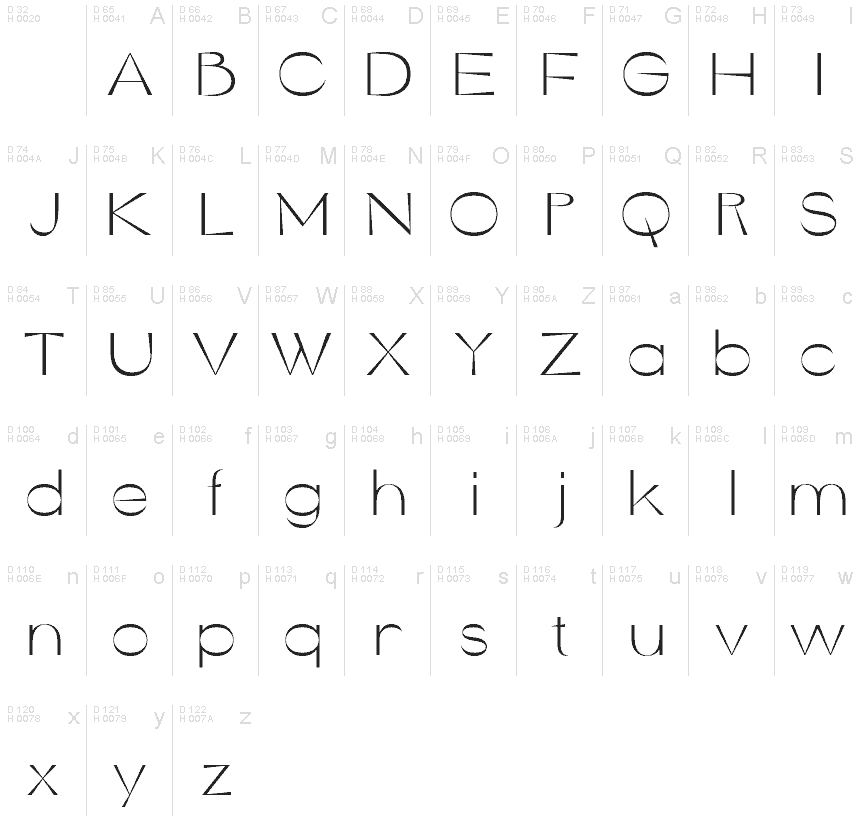
CS Austria Demo Regular
CS Austria font by Craft Supply Co. is a light expanded sans serif font with a minimalist, and modern style. It explores geometric shapes and sophisticated arrangements that make this typeface ideal for finishing sleek designs with a high-tech aesthetic. Both fashionable and functional, CS Austria is readable enough to be used in paragraphs or in display design.
The font’s simple yet elegant look makes it relevant to clothing brands, product branding, or even magazine layouts. It works for books, journals, cosmetics packaging design as well. Explore web design projects or channel banners using this versatile free sans serif font too!